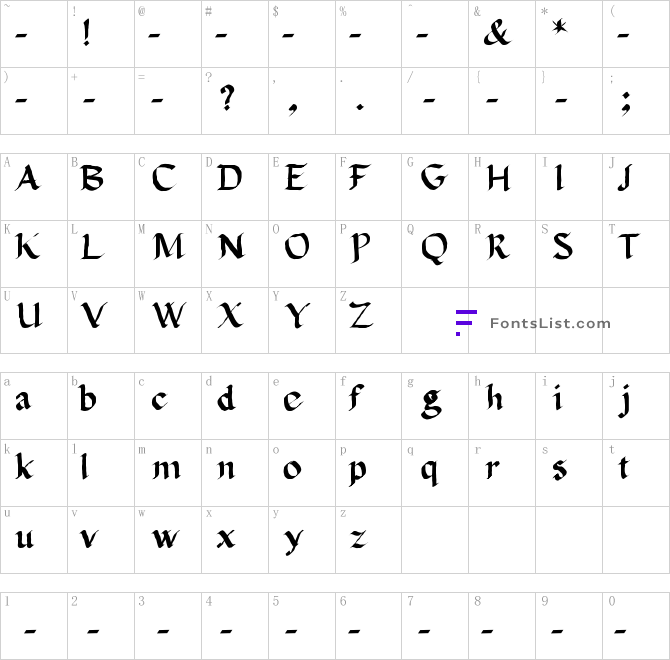
- Font Name:Calligula
Calligula.ttf is a very beautiful artistic font, Calligula.ttf is widely used in the design and printing of various books and pictures,Calligula.ttf has a strong visual impact,Calligula.ttf is a commonly used font in newspapers, magazines and books, and is used in posters, e-commerce Poster design, store design, logo design, font design and other fields.Calligula.